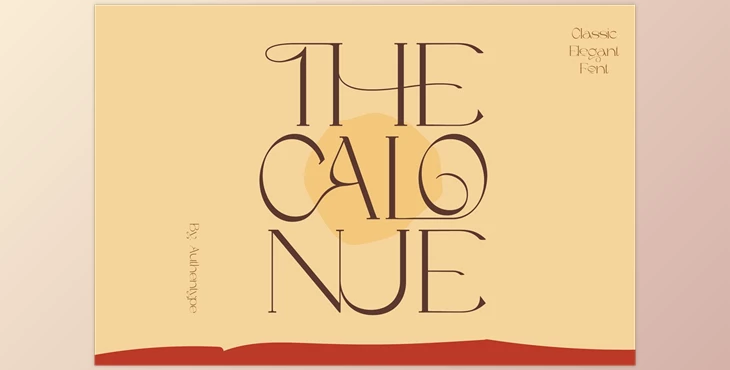
The Calonue Classic & Elegant Font is the Calonue Classic & Elegant Font developed by Authen Type. The font is an elegant and timeless style, suitable for:
The classic and elegant designs are beautiful to incorporate into branding concepts for feminine and beauty products. It is also possible to know that The Calonue is placed for logos, brochures, designs, and invitations with a clean and diverse font concept.